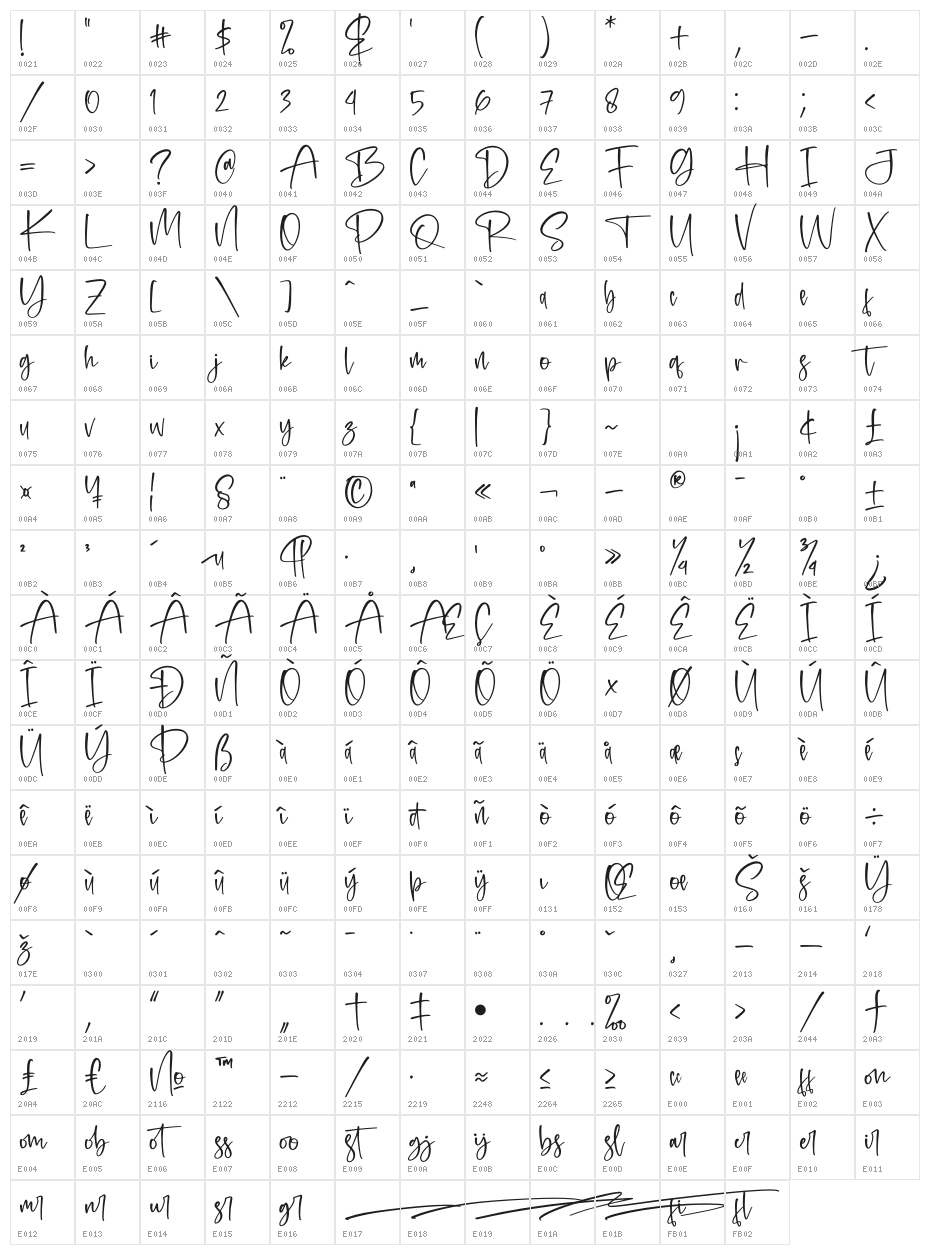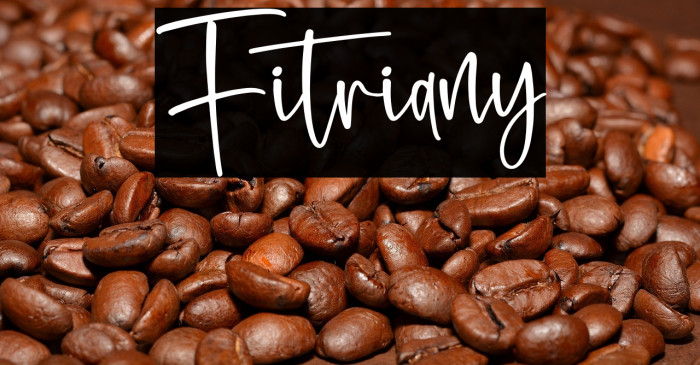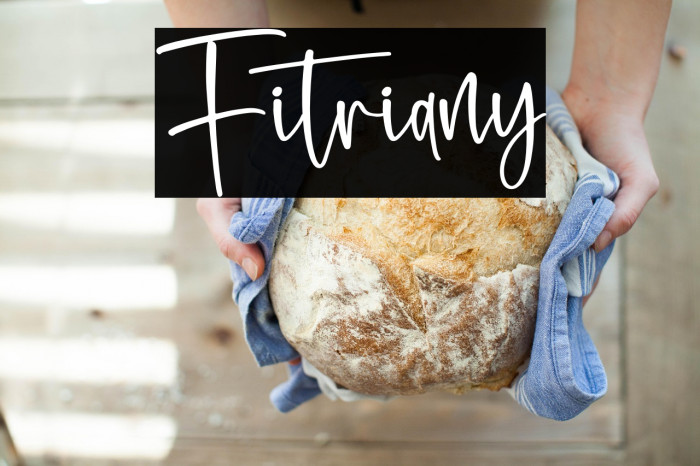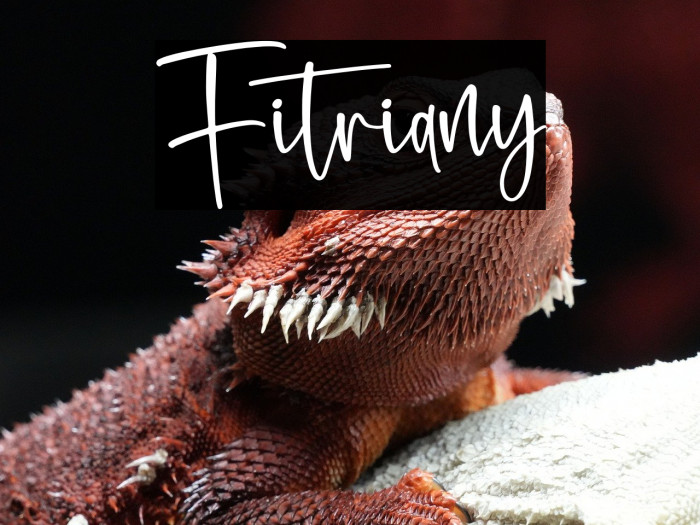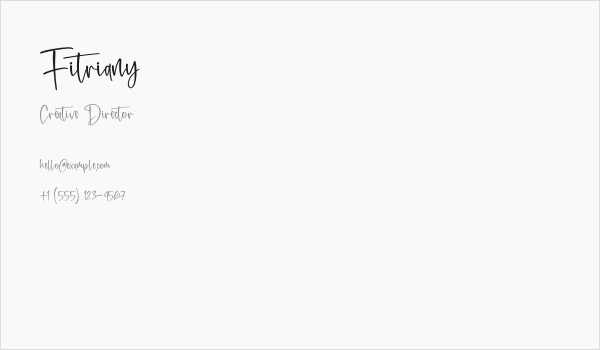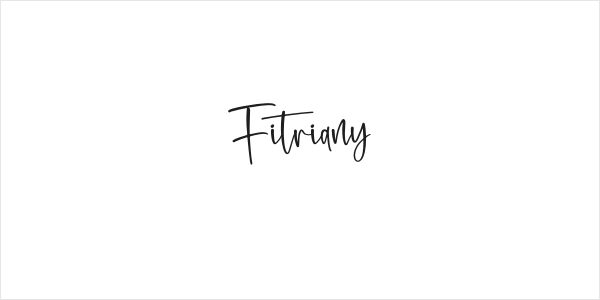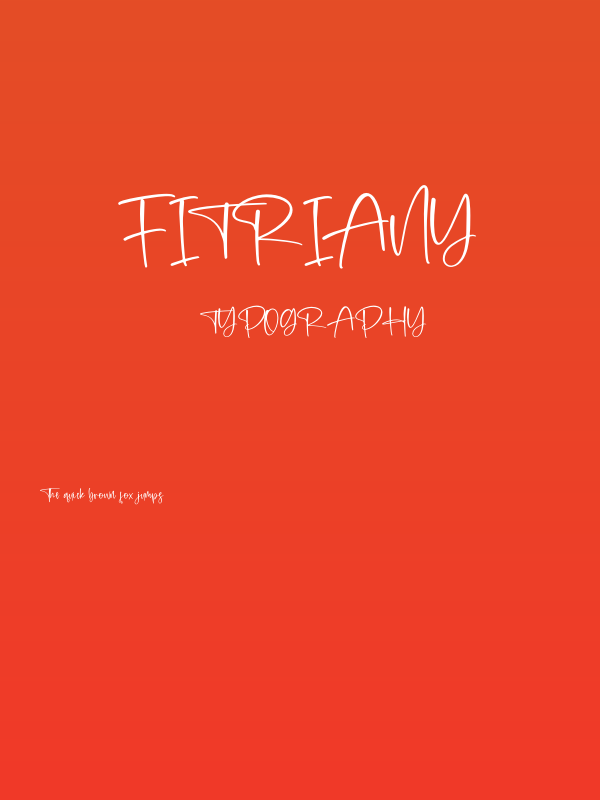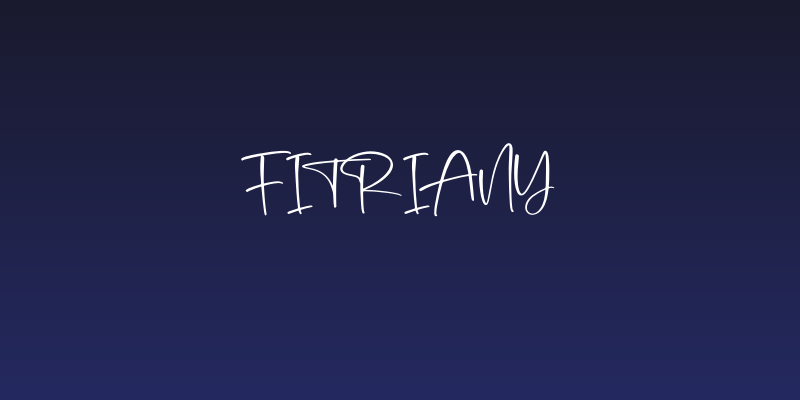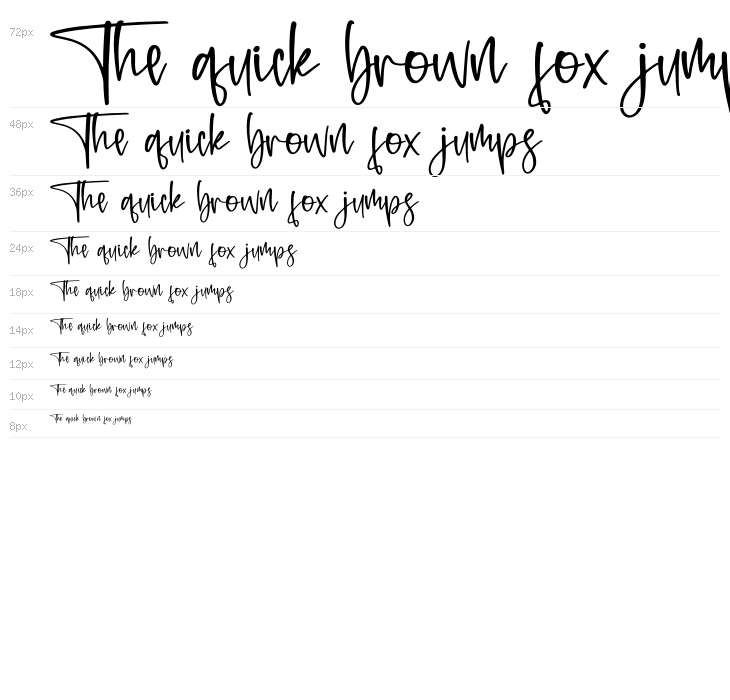
Fitriany Font
Fitriany Description
A playful handwritten font with a casual and flowing style, featuring irregular strokes and a lively appearance.
| Use Case | Headlines, Informal text, Personal projects |
| Proposed Projects | Greeting cards, invitations, personal branding. |